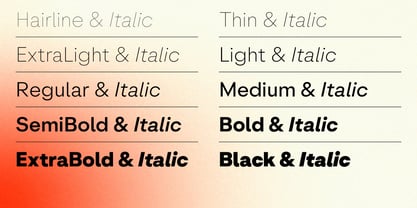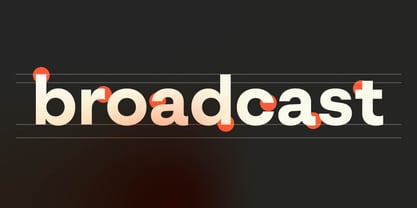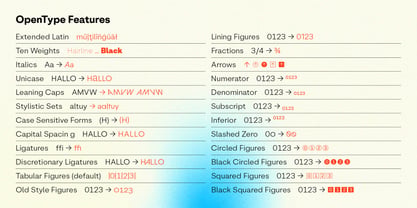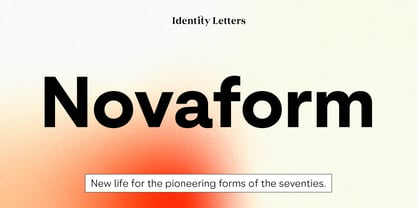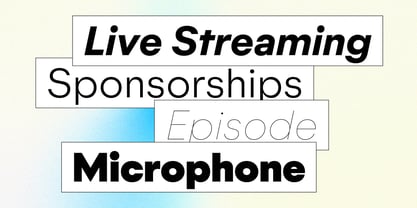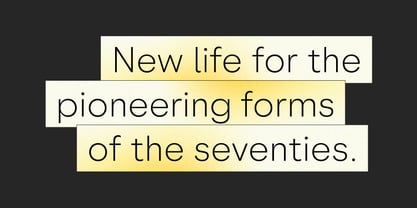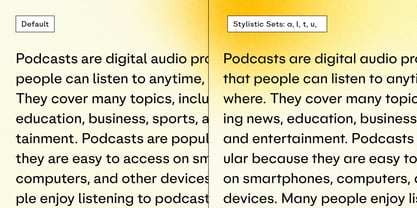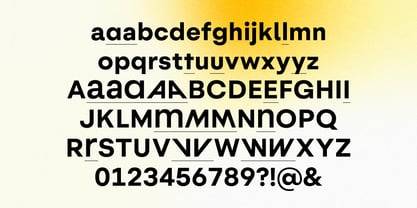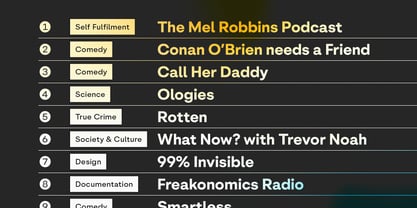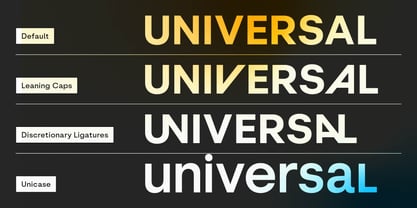
Novaform
by Identity Letters
The Novaform Font Family was designed by Moritz Kleinsorge and published by Identity Letters. Novaform contains 20 styles and family package options. More about this family
Novaform is our contemporary answer to 1970s geometric type design systems—when classic typefaces like Kabel or Futura were reimagined in a bold and rigorous way, with interlocking uppercase ligatures and tremendous x-height. These hallmarks of the phototypesetting era were exclusively designed for display use. By contrast, Novaform is much more approachable. It looks more natural and reads well in body text, but still radiates the pioneering, optimistic spirit that inspired it: with circular construction, classical proportions, small counters, and narrow apertures. Across 10 weights, use stylistic sets, hallmark ligatures, and a special Unicase mode to fine-tune its flashiness as you like.
Designers: Moritz Kleinsorge
Foundry: Identity Letters